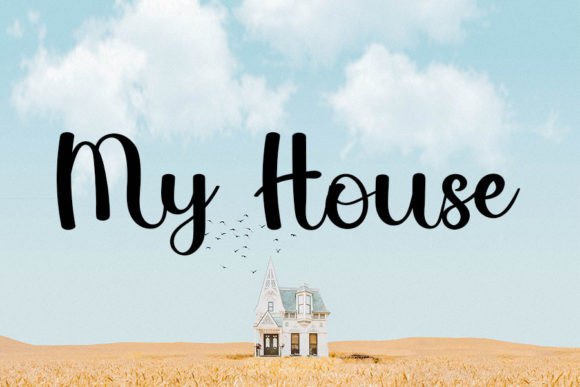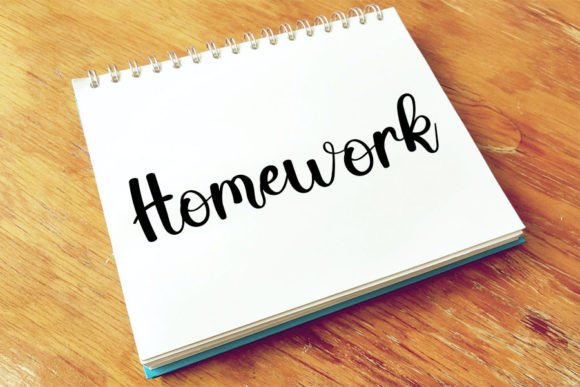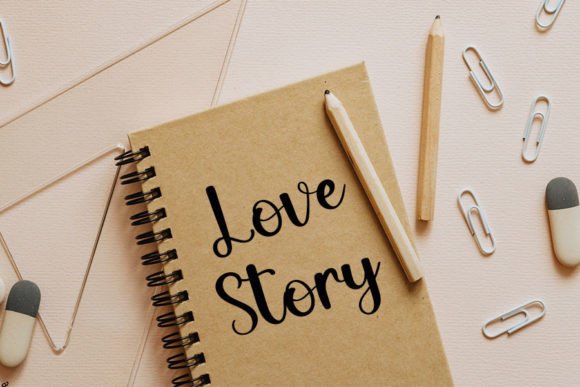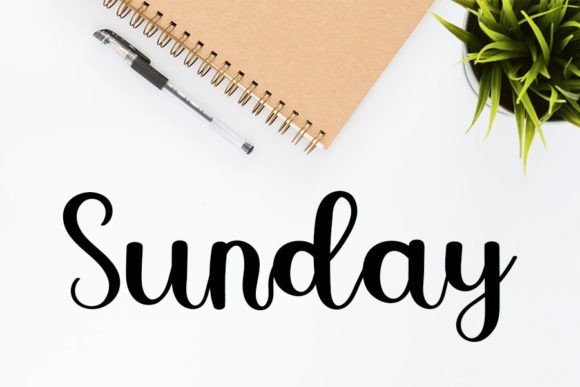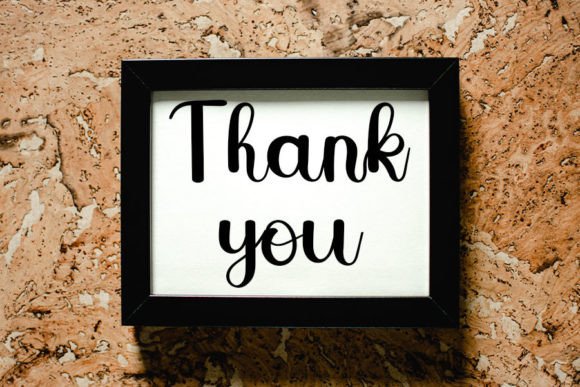
About Huntera Font
“Huntera” is a vibrant and colorful handwritten font that expertly combines elegance with a clean and slightly quirky style. This font is a versatile choice, well-suited for a wide range of design applications, including logos, branding, social media posts, and creative DIY projects.
One of the standout features of “Huntera” is its ability to infuse your text with personality and charm. The handwritten style of the font adds a unique and authentic touch to your designs, making it ideal for projects that aim to connect with your audience on a personal and creative level.
“Huntera” is adaptable and can be used in various design contexts. Whether you’re working on establishing a memorable brand identity, designing eye-catching logos, creating engaging social media content, or embarking on crafty DIY projects, this font brings a sense of creativity and individuality to your work.
Visualize using “Huntera” for your branding and how it adds a touch of playfulness and elegance to your company’s image. Picture incorporating this font into your social media posts, making your content more inviting and relatable. When you choose “Huntera” for your crafty DIY projects, it imparts a sense of creativity and a handmade feel to your creations.
In conclusion, “Huntera” is more than just a font; it’s a versatile design tool that brings a sense of personality and creativity to your design projects. Its colorful and handwritten style makes it an excellent choice for a wide range of applications, ensuring that your designs are both clean and charming. Make “Huntera” your go-to font for infusing your projects with a touch of elegance and individuality, ensuring that they resonate with your audience and leave a memorable impact.